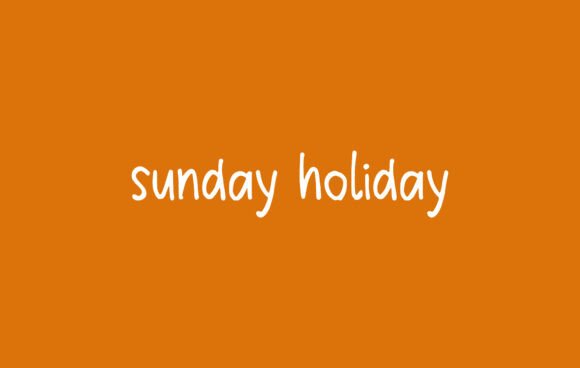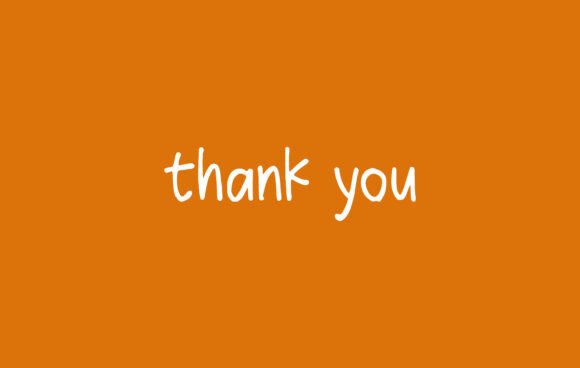
Introduction to Mya Font
As designers, we’ve all been there – staring at a blank page, searching for the perfect font to bring our creative project to life. It’s the moment of truth when we finally find that elusive combination of style and legibility that makes our design stand out. For those who crave a touch of romance in their work, Mya Font is the perfect discovery. With its authentic handwritten feel, this high-quality font is an absolute treasure trove for designers seeking a unique design resource.
Mya Font is more than just a pretty face – it’s a versatile and reliable companion for any creative endeavor. Whether you’re crafting magazine headlines, social media posts, or wedding invitations, this free download is sure to elevate your work to new heights. Its transparent background and legible design make it a seamless addition to any project, ensuring that your message shines through with clarity and charm.
Key Features of Mya Font
- The font features a transparent background, allowing for seamless integration with custom designs and backgrounds.
- With a unique and stylish design, Mya Font is perfect for creative projects requiring a touch of elegance and sophistication.
- The font is available in a range of sizes, making it suitable for use in various contexts, from small text to large headings.
- Mya Font is designed at a high resolution, ensuring crisp and clear typography, even when scaled up or down.
Honest Review: Mya Font
As a designer, I’m always on the lookout for high-quality design resources to elevate my creative projects. Mya Font is one of the many fonts I’ve come across, and I’m excited to share my honest review.
Here are the things that work well:
- ✨ High-quality font with crisp and clear characters.
- ✨ Versatile design that works well for various creative projects.
- ✨ Transparent background, allowing for easy customization and manipulation.
- ⚠️ Limited language support, which may be a concern for designers working on international projects.
- ⚠️ Not as extensive a character set as some other fonts, which may limit its use in certain contexts.
Overall, I’m impressed with Mya Font’s quality and versatility. While it may not be perfect, it’s a solid choice for designers looking for a high-quality, free font for their creative projects. With a little creativity, Mya Font can be a valuable addition to any design resource arsenal.
Mya Font: A High-Quality Design Resource
Tips for Getting the Most Out of Mya Font
Experiment with different font sizes, colors, and styles to achieve the desired look. Use the font in conjunction with other design elements to create a cohesive and visually appealing design.
The Mya Font is ideal for various design projects, including:
- Document design